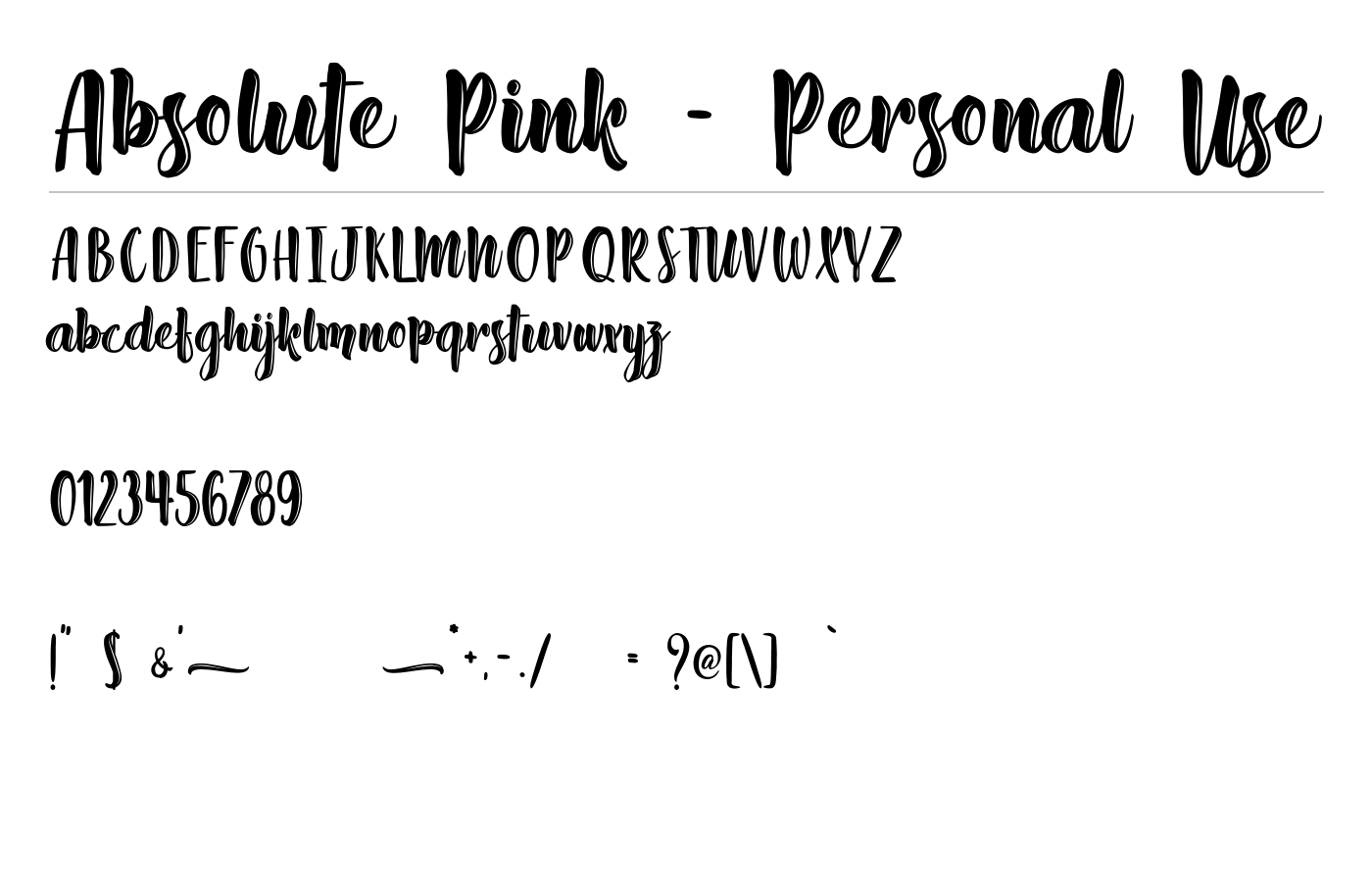
Absolute Pink is a playful and casual script font with a hand-drawn feel, featuring tall, slightly condensed letterforms with varying stroke widths that create an energetic and lively rhythm. Its blend of smooth curves and textured brush strokes makes it perfect for creative projects like invitations, branding, and packaging where a friendly and approachable vibe is desired. This font works best in larger sizes for headlines and logos, adding a personal and artistic touch without sacrificing readability.
| Designer | Typhoon Type - Suthi Srisopha |